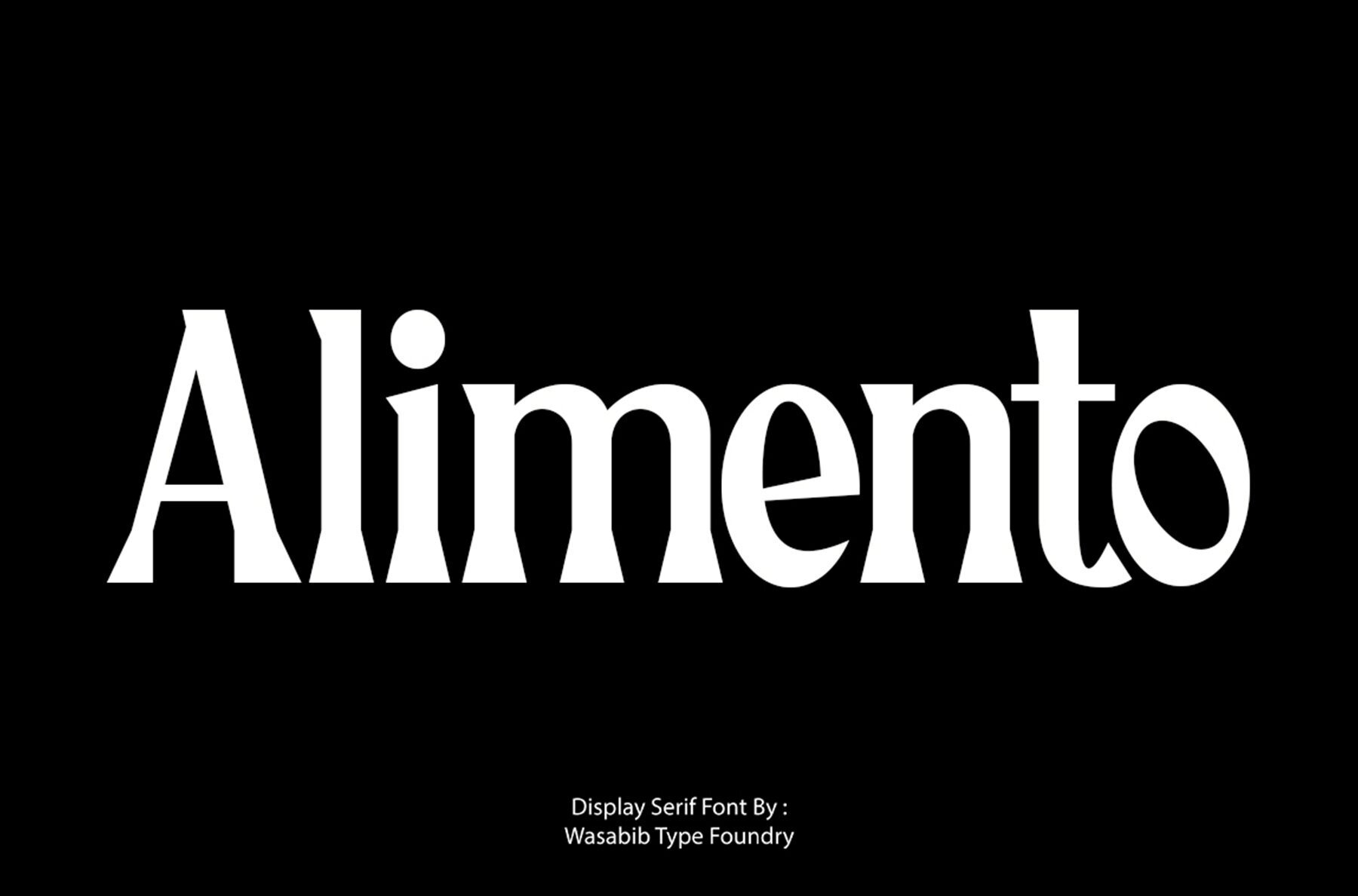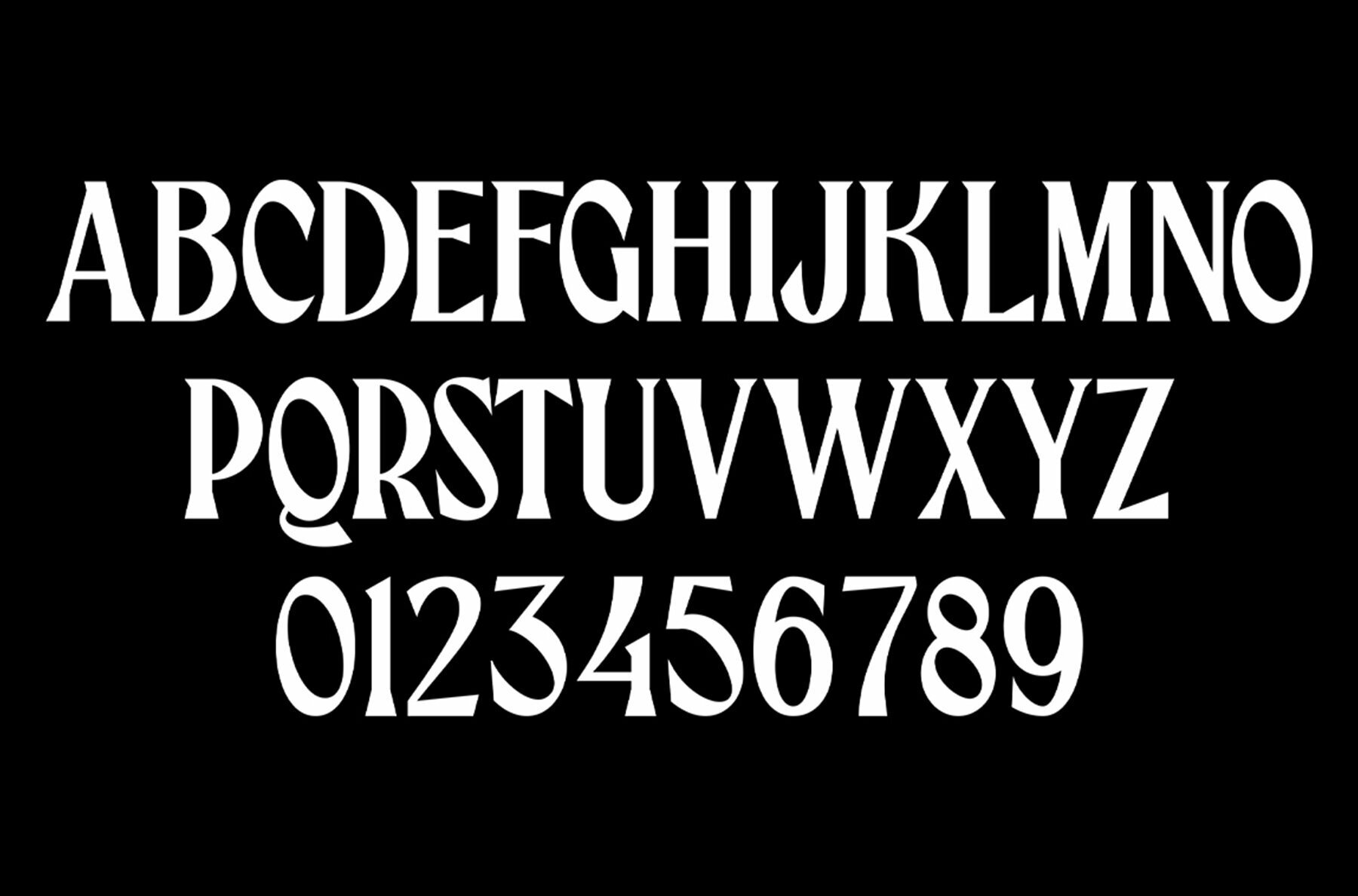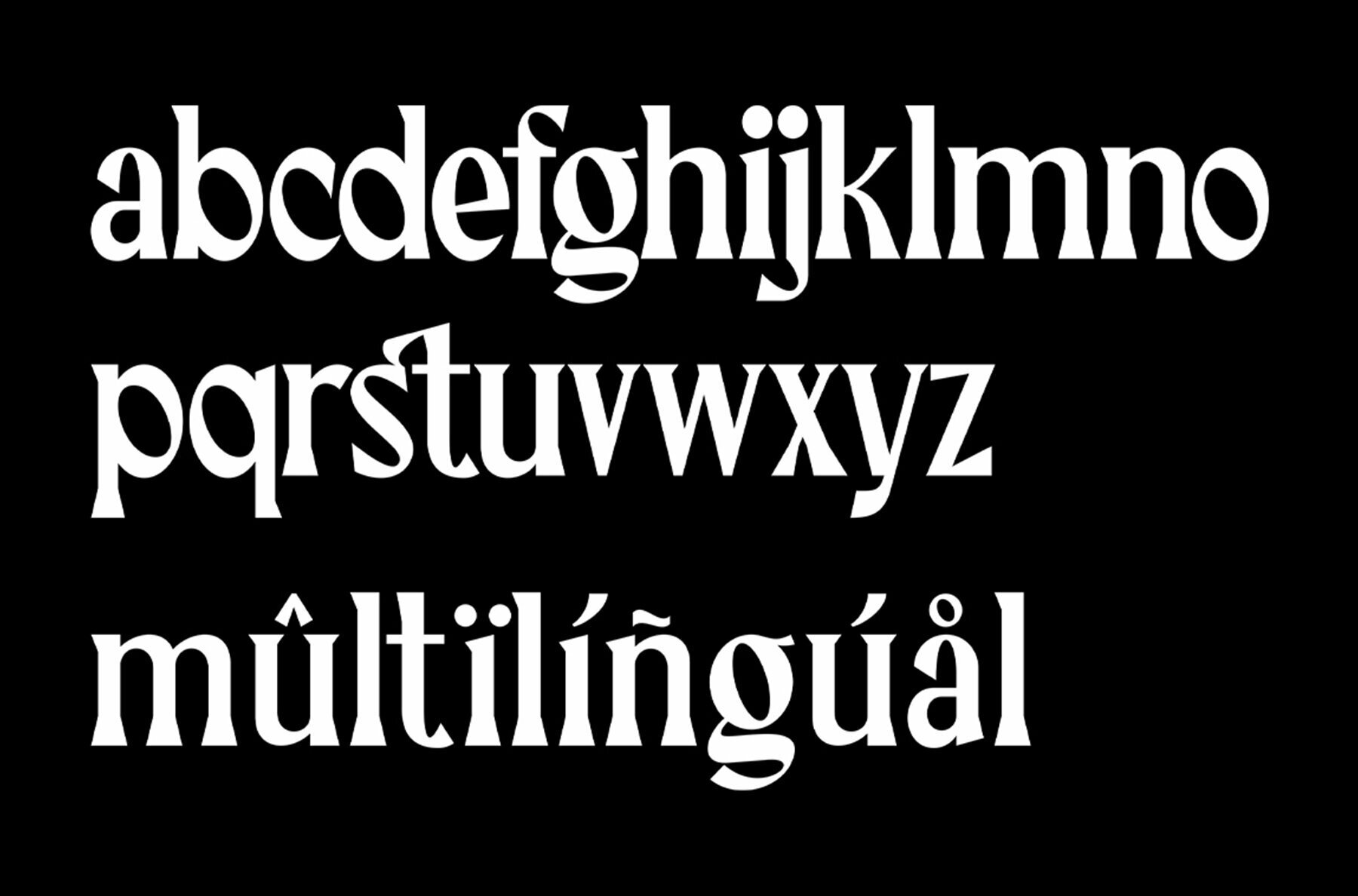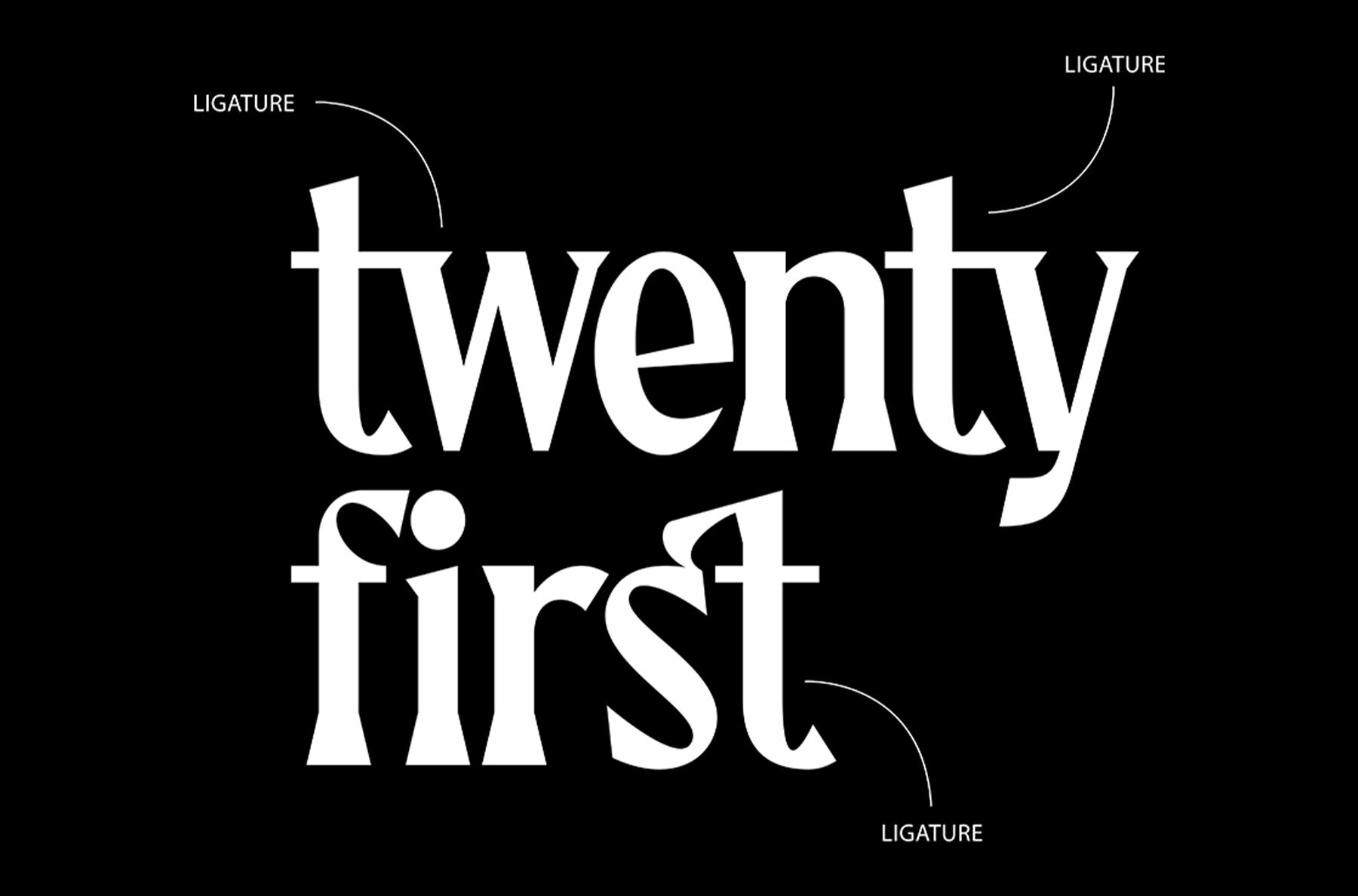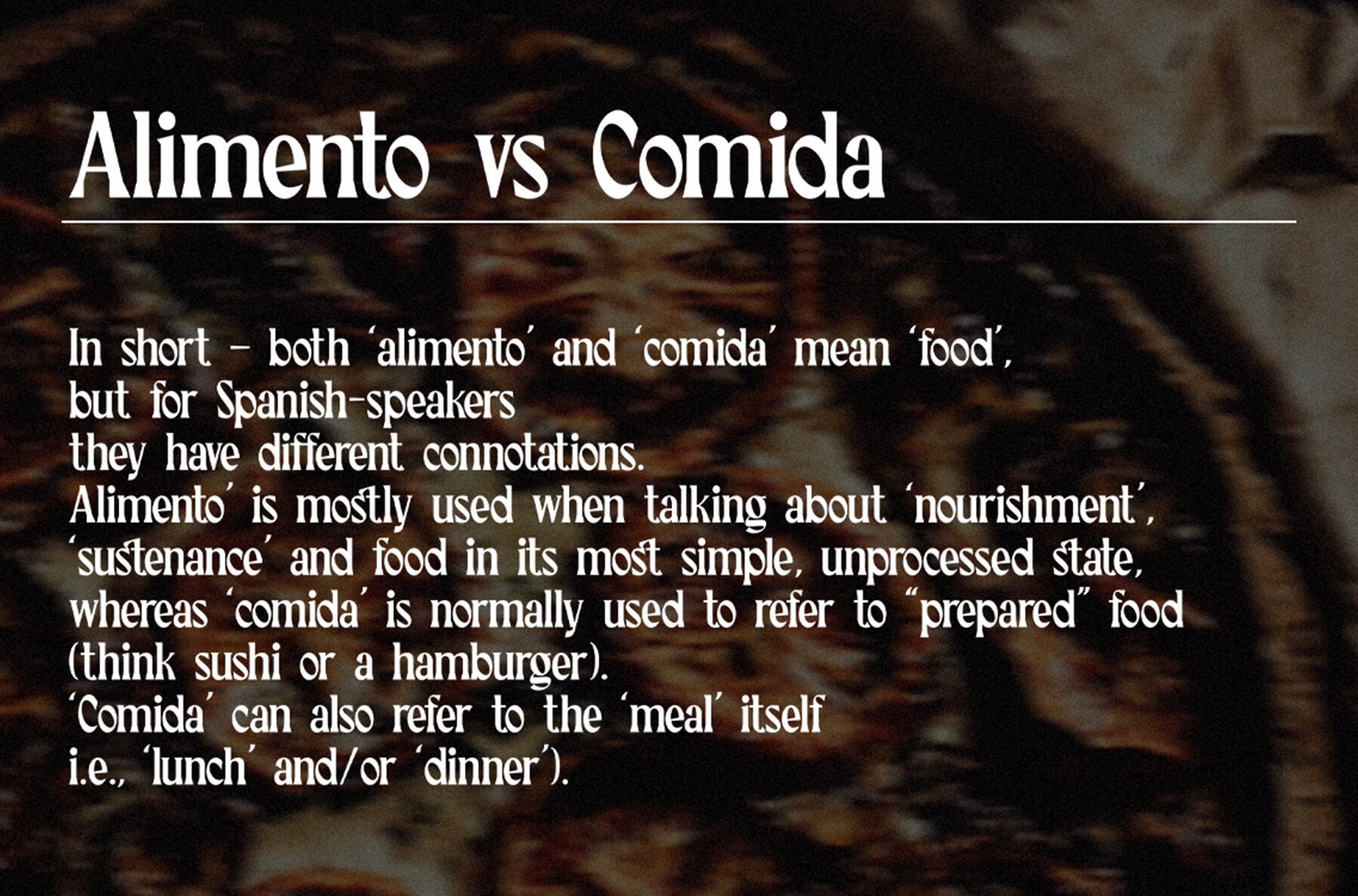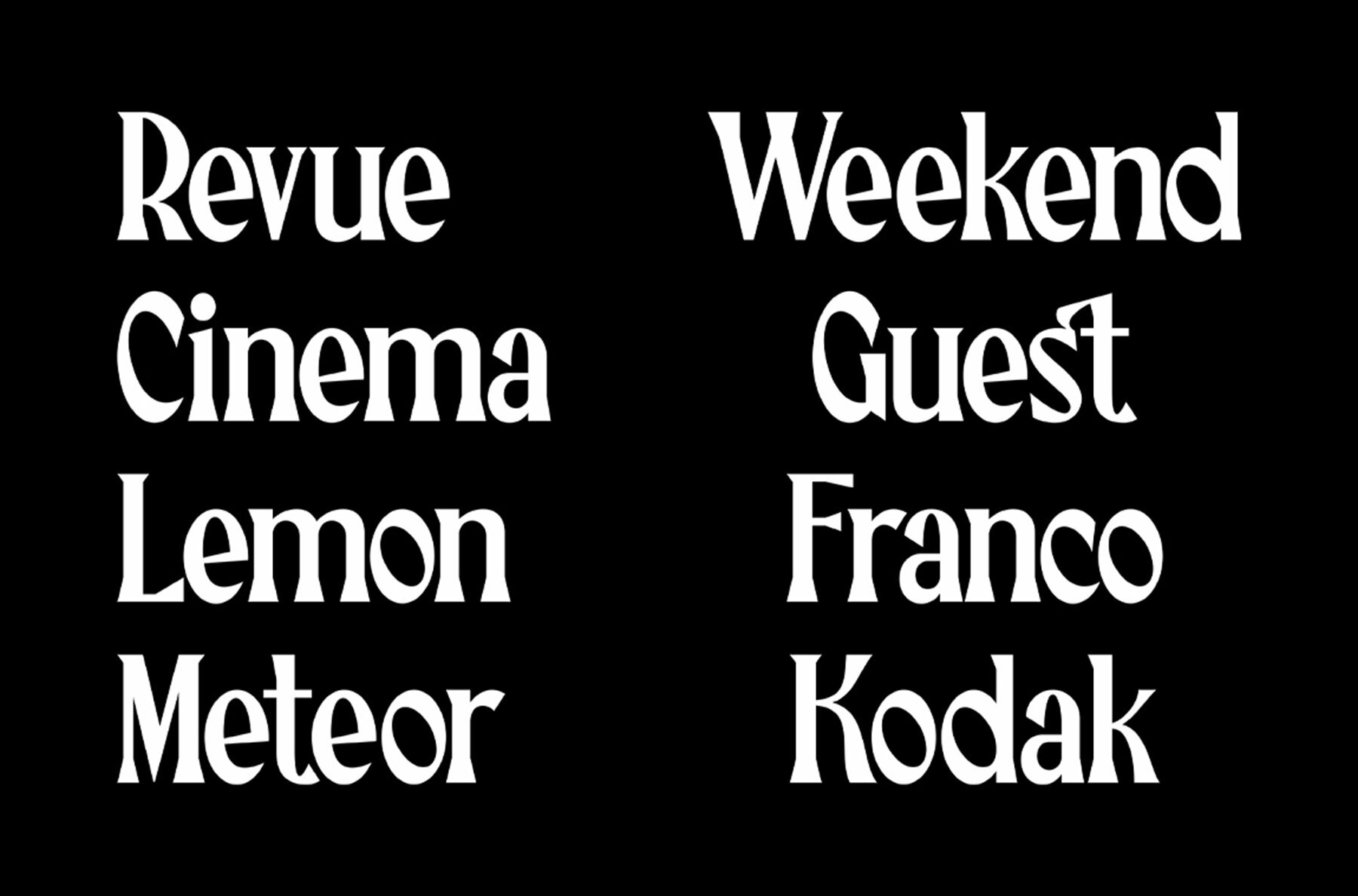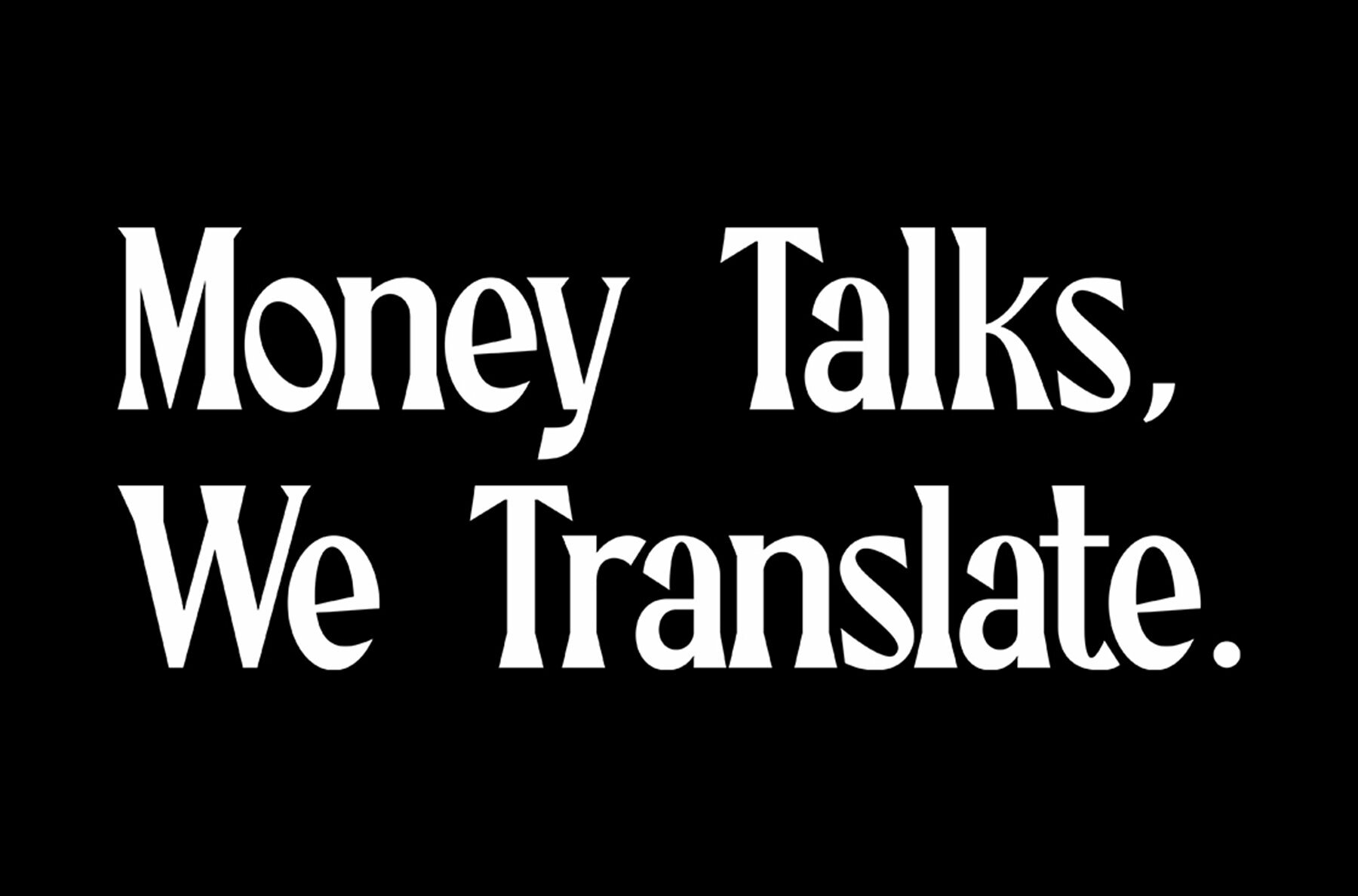
Alimento Font
WTF Alimento
This bold and distinctive serif font features a decorative style that commands attention, making it ideal for eye-catching headlines, branding, and advertising materials. With its thick, stylish lines, it adds a vintage flair to any project, suitable for logos, posters, banners, and other display purposes that require strong visual impact.